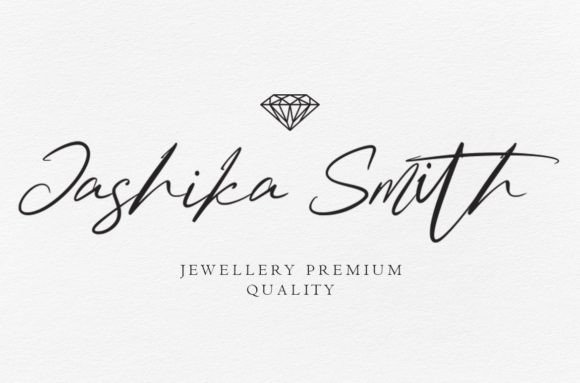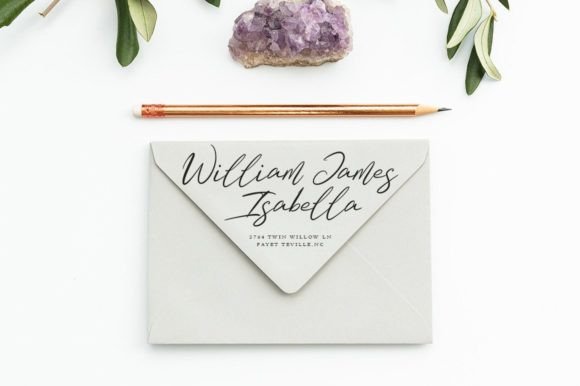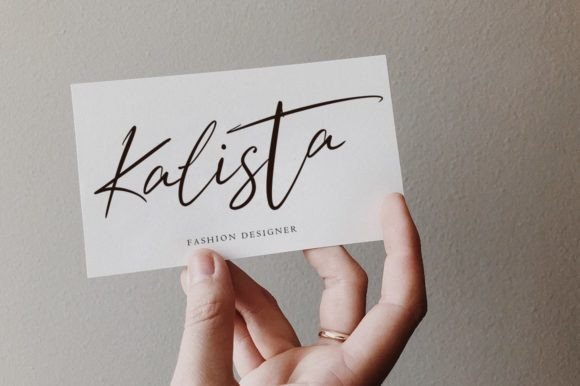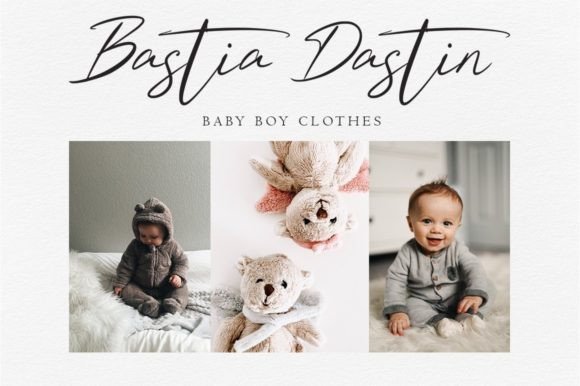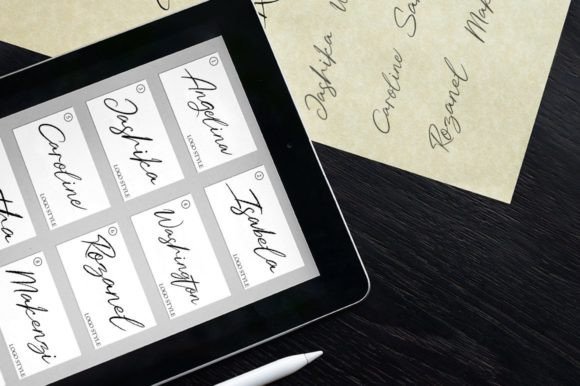
Discover the Soul of the Blues: A Font that Stirs the Imagination
As a designer, there’s nothing quite like the thrill of the blank page, waiting to be filled with a creative idea that sparks a new project. For many of us, that spark comes from a font that speaks to our artistic soul. And for those who crave a touch of classic elegance, the Blues Signatured Font is sure to be a game-changer.
With its bold, script-like feel, Blues Signatured Font is perfect for designers looking to add a touch of sophistication to their branding, wedding invitations, or greeting cards. This versatile font is a must-have for anyone who wants to give their projects a unique and stylish edge. Whether you’re a seasoned pro or just starting out, the Blues Signatured Font is an invaluable addition to your design toolkit.
Blues Signatured Font Key Features
- Unique Characteristics: The font features a distinctive blend of modern and vintage elements, with a subtle distressed effect that adds a touch of sophistication and elegance.
- Font Style: Blues Signatured Font is a script font, perfect for creating eye-catching headlines, titles, and other text elements that require a unique and stylish touch.
Blues Signatured Font Review
First off, let’s talk about what I love about Blues Signatured Font ✨. It’s a beautiful, elegant font that’s perfect for creating a sophisticated and professional look. The script-like style gives it a touch of luxury, making it ideal for invitations, wedding stationery, or any other high-end project. The font also comes with a wide range of weights and styles, allowing for plenty of customization options.
Here are some of the things that work well in this font:
- Beautiful, elegant design that’s perfect for high-end projects
- Wide range of weights and styles for customization
- Looks great in both digital and print formats
- Supports a variety of languages
That being said, there are a few limitations to consider ⚠️. The font can be a bit too ornate for some projects, and the script-like style may not be suitable for all types of text. Additionally, the font may not be as readable at small font sizes, which can be a problem if you’re working on a project with a lot of fine print.
Overall, I think Blues Signatured Font is a great choice for anyone looking to add a touch of elegance and sophistication to their project. With its beautiful design and wide range of customization options, it’s a versatile font that can be used in a variety of contexts.
Blues Signatured Font Practical Application Guide
The Blues Signatured Font is ideal for creating a vintage or retro look in designs such as:
- Music posters
- Restaurant menus
- Advertising materials
- Wedding invitations
To get the most out of the Blues Signatured Font, try:
- Combining it with other vintage or distressed fonts
- Using it for headings and titles
- Experimenting with different font sizes and styles